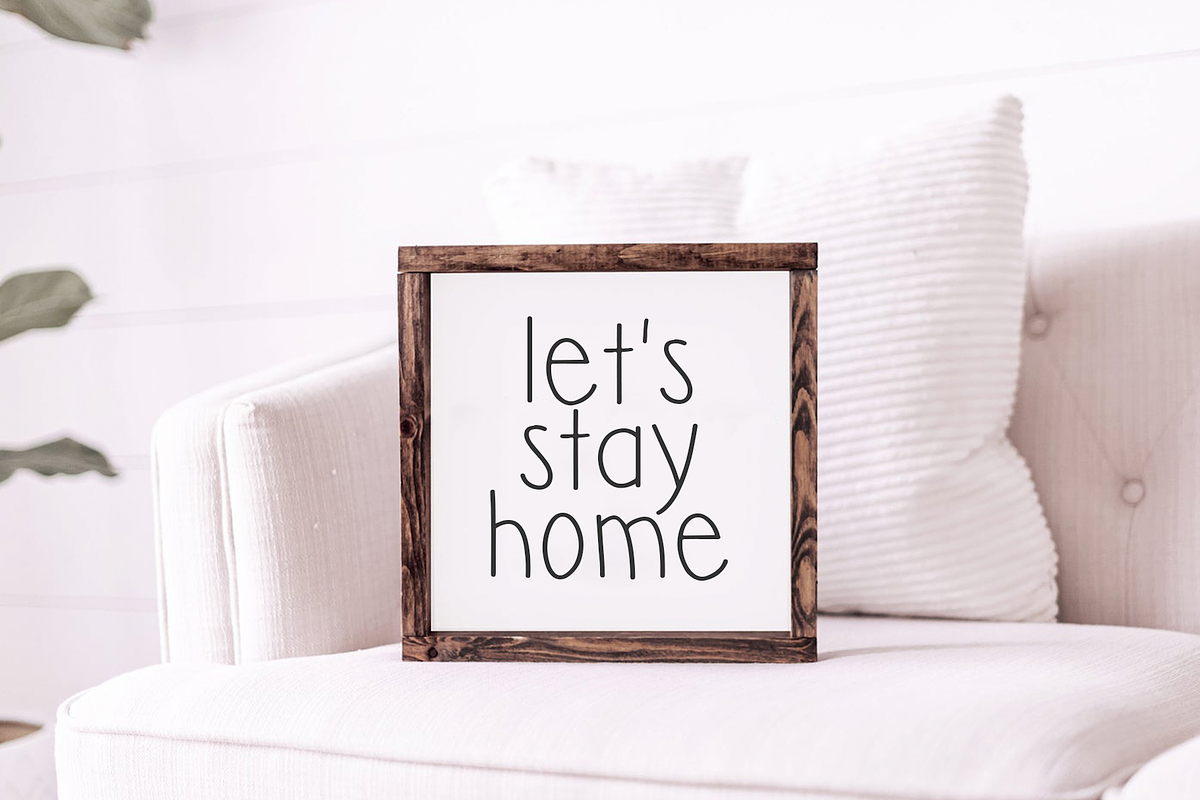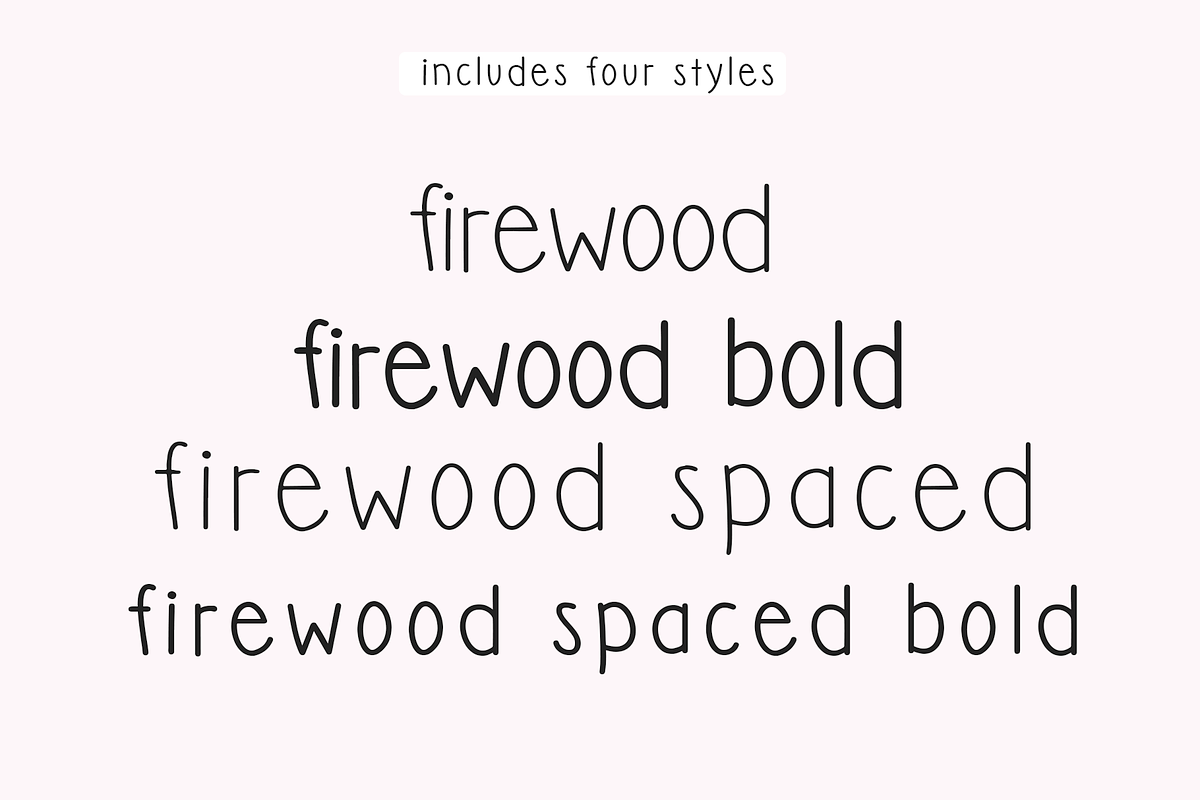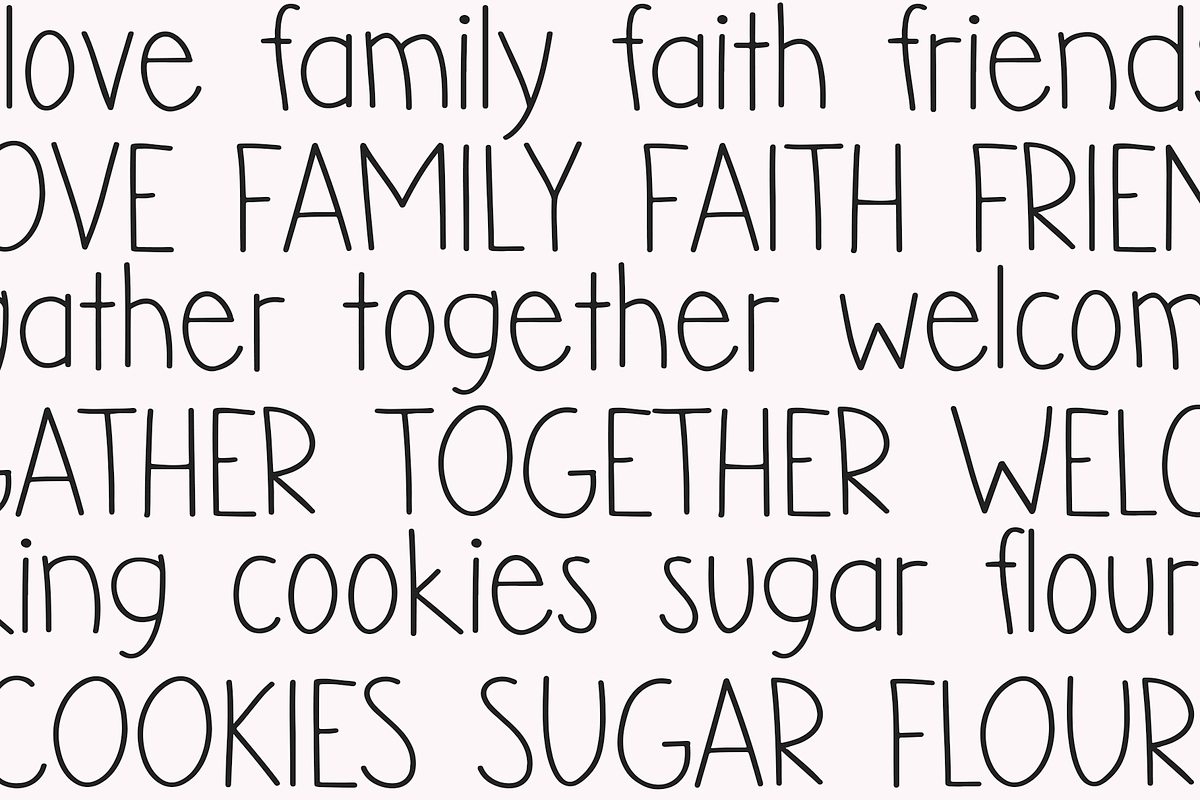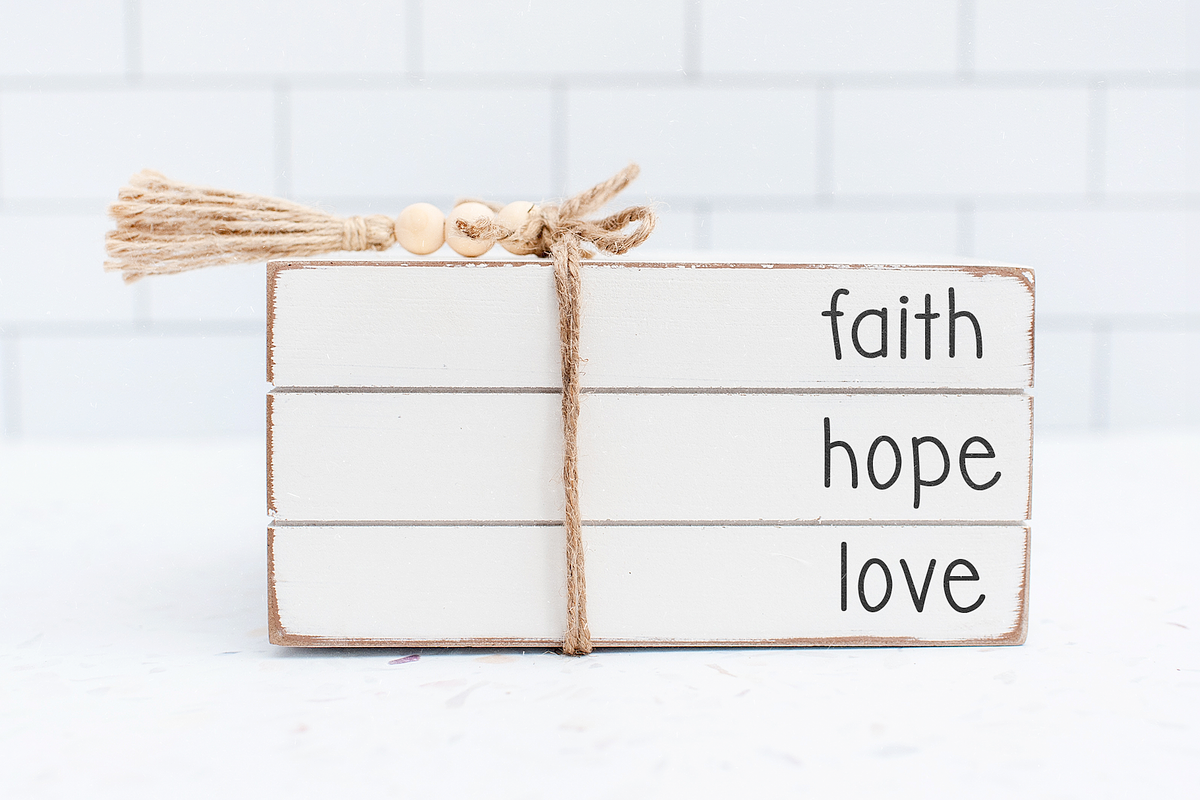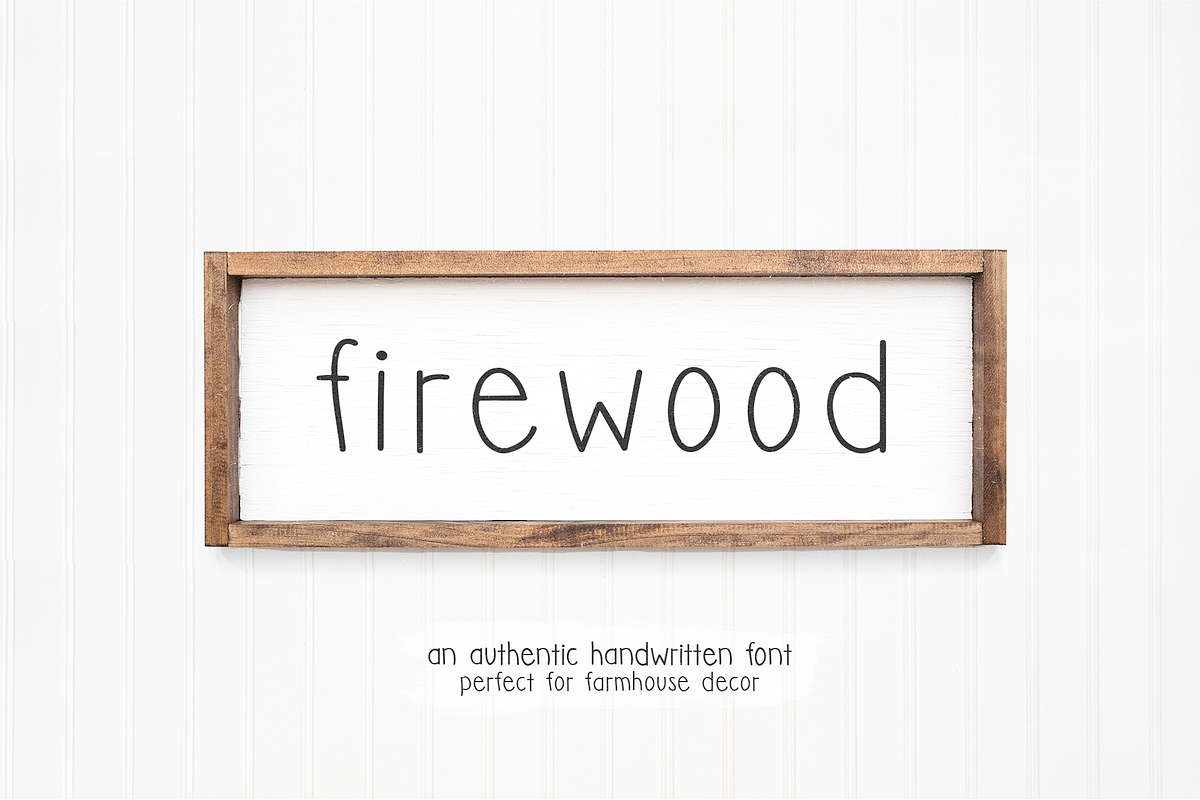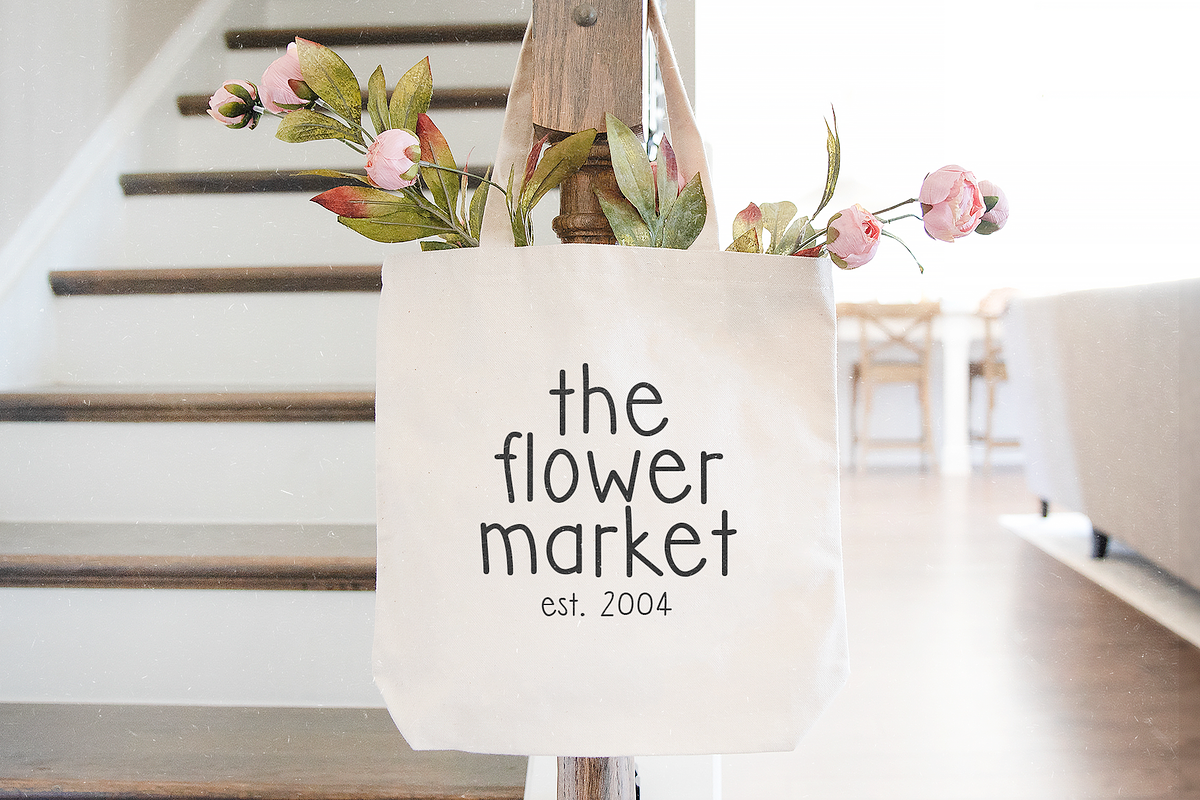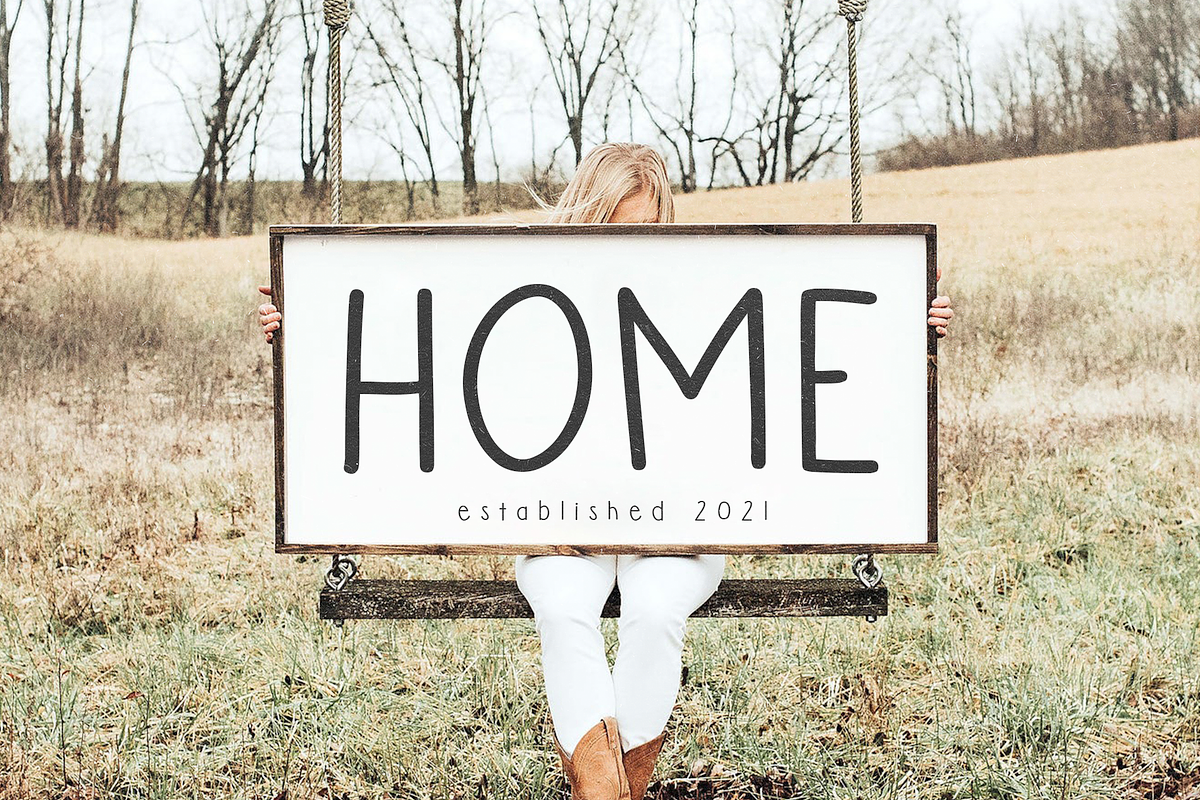
Firewood | Farmhouse Font
Firewood is a handwritten font in a style that is perfect for all of your farmhouse designs!
This font is perfect for creating home decor, farmhouse signs, shirts, decor, social media and more!
Includes -
- Firewood
- Firewood Bold
- Firewood Spaced
- Firewood Bold Spaced